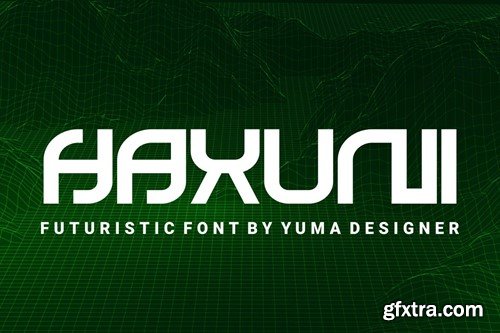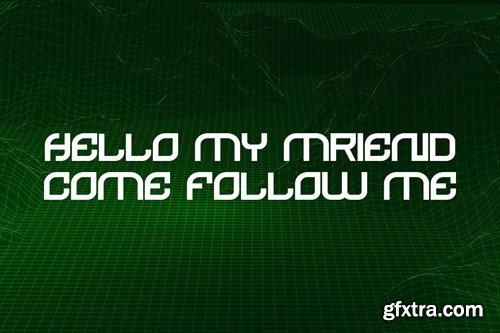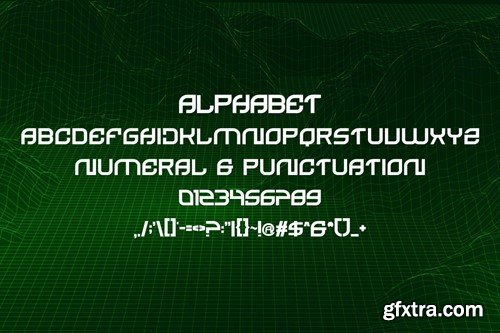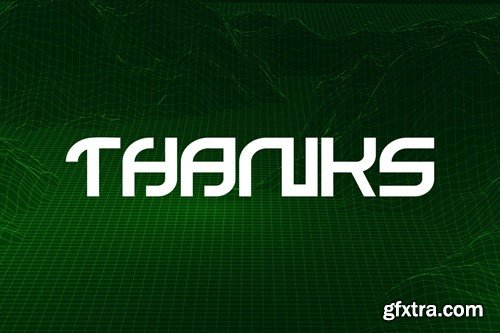
Haxuni - 拟人类化未来主义可变字体 MXNQ5MF
Haxuni - Futuristic Variable Typeface
Introducing Haxuni Font. Haxuni is a modern and simple font, best used as a display for headings, logos, branding, magazines, product packaging and invitations. Haxuni come with clean lines and smooth curves give any project an extra touch of class. What you get: Thank you.